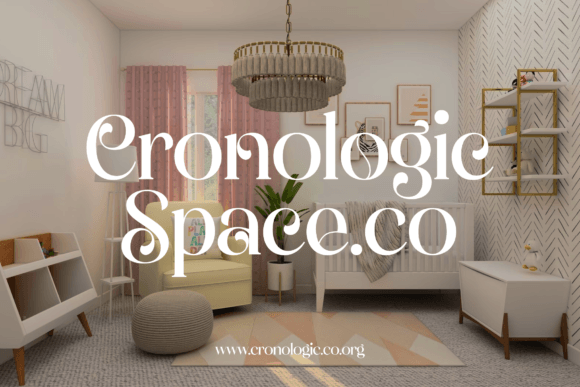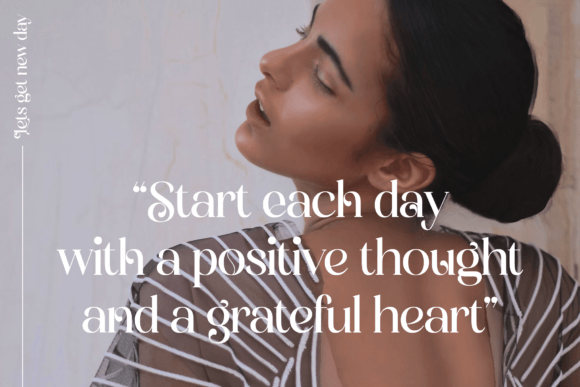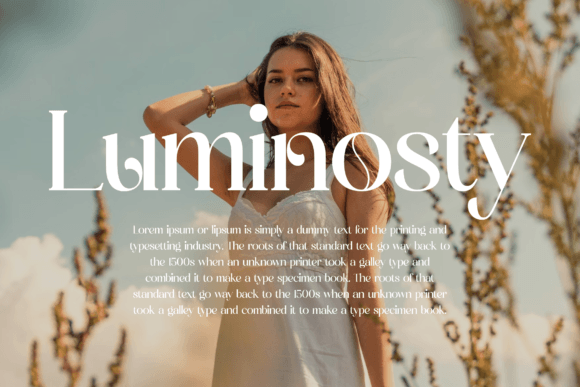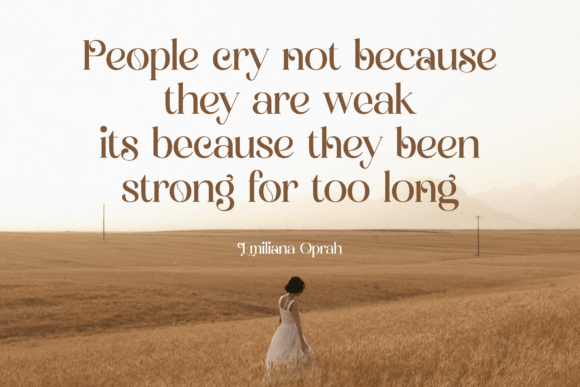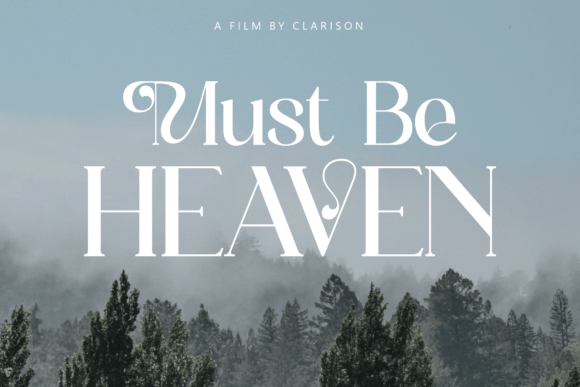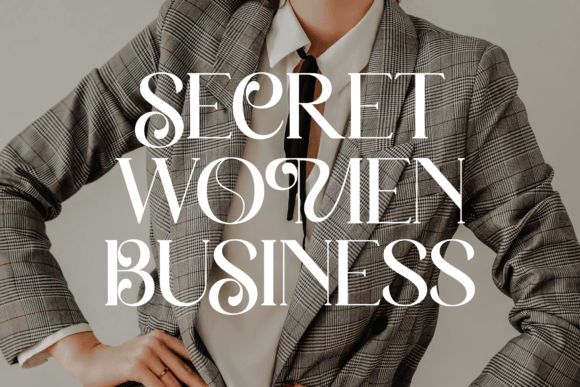
Introduction to Lemosty Font
As designers, we’ve all been there – staring at a blank canvas, trying to bring our creative vision to life. The perfect font can be the difference between a good design and a great one. And when it comes to creating a truly elegant and luxurious look, the Lemosty Font is an invaluable resource. With its modern and classy serif style, this typeface is perfect for designers looking to add a touch of sophistication to their projects.
Whether you’re working on a high-end logo, a fashion brand’s advertising campaign, or a book title design, the Lemosty Font is a must-have in your design arsenal. Its unique style and fancy look make it a standout choice for any creative project that requires a touch of luxury and glamour.
One of the best things about the Lemosty Font is that it’s PUA encoded, making it easy to access all of the glyphs and swashes you need to bring your design to life. And with its high-quality design and transparent background, you can be sure that your design will look its best, no matter what project you’re working on.
Key Features of Lemosty Font
- Transparent background, making it easy to layer with other graphics
- Includes a range of weights and styles to suit various design needs
- Perfect for designers, artists, and creatives looking for a unique font for their projects
Honest Review: Lemosty Font
As a designer, I’m always on the lookout for high-quality design resources that can elevate my creative projects. Recently, I had the chance to work with the Lemosty Font, and I’m excited to share my honest review with you.
What works well: ✨ The Lemosty Font is a beautifully crafted font that offers a unique blend of elegance and sophistication. The clean lines and subtle curves make it perfect for a wide range of design applications, from logos and branding to typography and web design. I particularly appreciate the font’s versatility, as it can be used for both digital and print projects.
What’s not so great: ⚠️ While the Lemosty Font is a high-quality design resource, it’s not without its limitations. The font only comes in a few weights, which can limit its use in certain design scenarios. Additionally, the font doesn’t include any alternate characters or swashes, which may be a drawback for designers who require more customization options.
Overall, I’m impressed with the Lemosty Font, and I would definitely recommend it to designers looking for a high-quality, free download. While it may have some limitations, its unique style and versatility make it a valuable addition to any design toolkit.
- Perfect for logos, branding, and typography
- Works well for both digital and print projects
How to Use Lemosty Font
The Lemosty Font is a high-quality design resource perfect for creative projects that require a unique touch. With its transparent background and stylish design, this font is ideal for designers who want to add an extra layer of sophistication to their work.
The Lemosty Font is perfect for a variety of creative projects, including:
- Business cards and marketing materials.